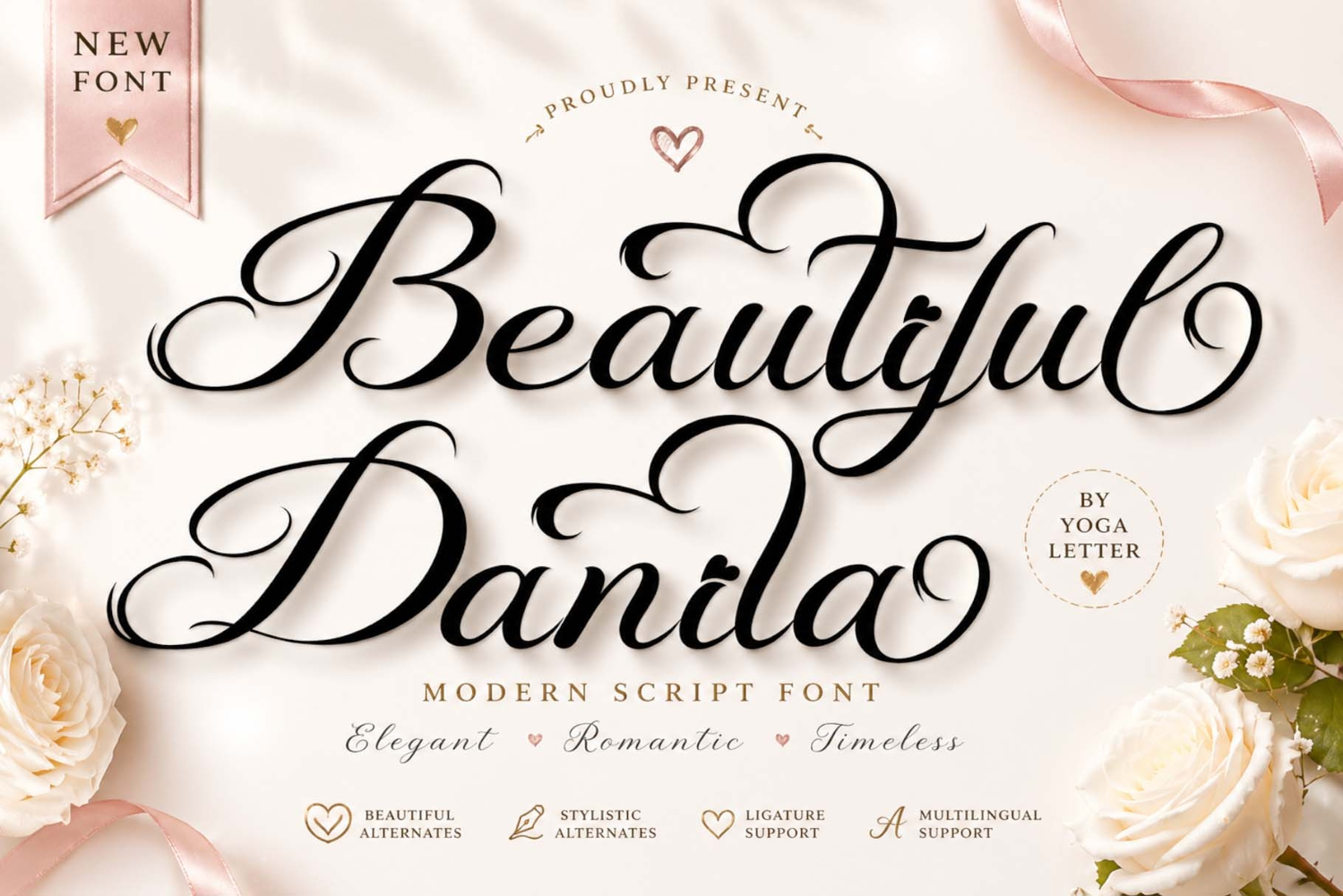
"Beautiful Danila" is a beautiful and elegant handwritten font. It comes in two styles: regular and italic. It features uppercase and lowercase letters, numerals, punctuations, alternates, swashes, and multilingual support. It's perfect for invitations, certificates, advertisements, photography, weddings, Christmas, business logos, banners, posters, branding, summer, holidays, and more.